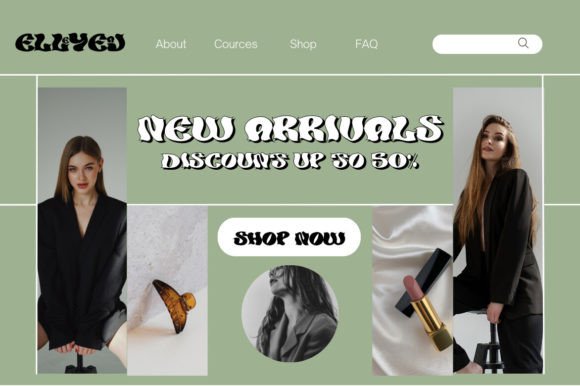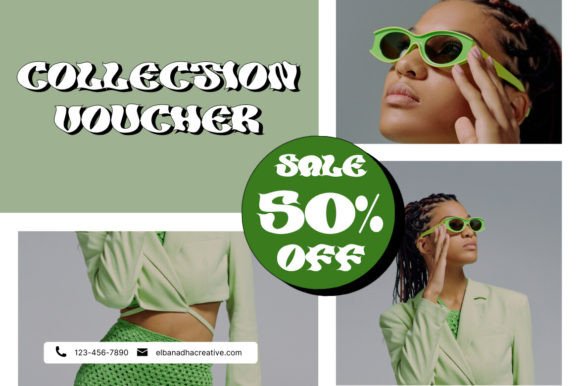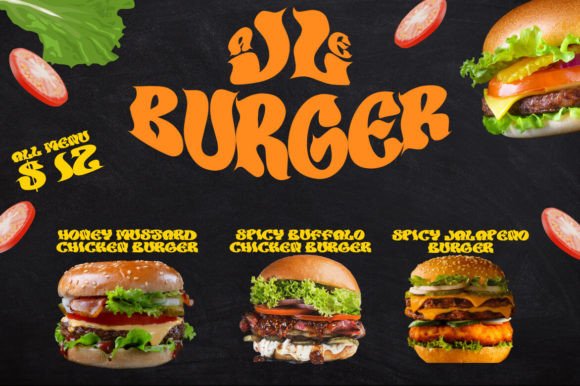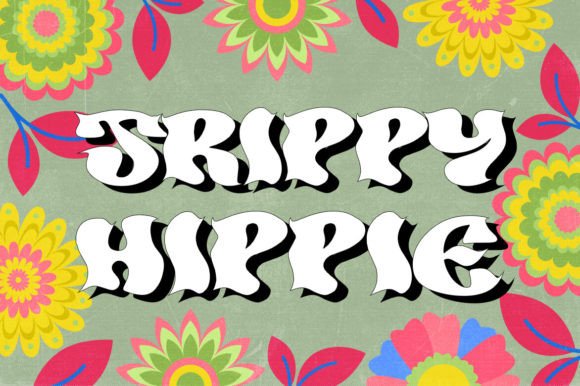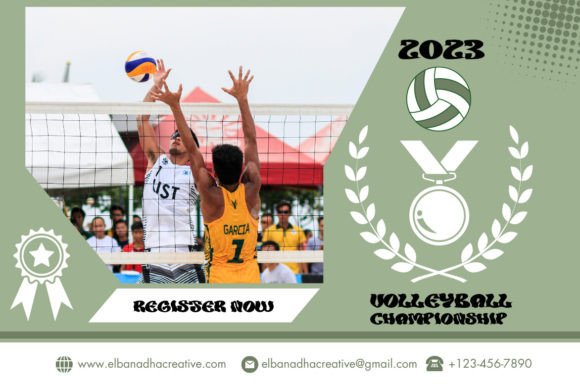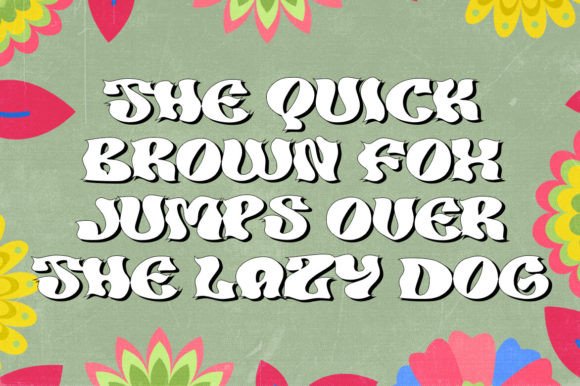
Introducing AJEGILE: The Ultimate Display Typeface Font for Creative Projects
In the world of design, typography plays a crucial role in conveying messages, expressing creativity, and capturing the audience’s attention. When it comes to selecting the perfect font for a project, designers and crafters often find themselves spoiled for choice. However, if you’re looking for a display typeface font that exudes elegance, sophistication, and versatility, look no further than AJEGILE.
What is AJEGILE?
AJEGILE is a stunning display typeface font designed to elevate your creative projects to new heights. Its unique blend of modernity and classic charm makes it an ideal choice for a wide range of applications, from logos and branding projects to homeware designs, product packaging, and more.
Key Features of AJEGILE
- Unique and Elegant Design: AJEGILE boasts a distinctive and refined design that sets it apart from other fonts. Its elegant lines, subtle curves, and carefully crafted letterforms make it perfect for projects that demand a touch of sophistication.
- Versatile and Adaptable: Whether you’re working on a logo, brochure, or social media graphics, AJEGILE adapts seamlessly to various design contexts, ensuring your message is conveyed with clarity and style.
- Wide Range of Applications: AJEGILE is suitable for an extensive array of projects, including:
- Logos and branding projects
- Homeware designs
- Product packaging
- Mugs and ceramics
- Quotes and posters
- Shopping bags and merchandise
- T-shirts and apparel
- Book covers and publications
- Name cards and invitation cards
- Greeting cards and labels
- Photography and watermark
- Special events and exhibitions
Why Choose AJEGILE?
With so many fonts available, why should you choose AJEGILE for your next project? Here are just a few compelling reasons:
- Stand Out from the Crowd: AJEGILE’s unique design ensures your project will grab attention and leave a lasting impression on your audience.
- Elevate Your Brand: By incorporating AJEGILE into your branding, you’ll convey a sense of sophistication, elegance, and refinement, helping to establish your brand as a leader in its field.
- Easy to Use and Customize: AJEGILE is designed to be user-friendly, making it easy to integrate into your design workflow. Plus, its flexibility allows for effortless customization to suit your project’s specific needs.
Tips for Using AJEGILE Effectively
To get the most out of AJEGILE, consider the following tips:
- Experiment with Colors and Textures: AJEGILE’s versatility shines when paired with different colors and textures. Don’t be afraid to try out various combinations to find the perfect fit for your project.
- Play with Font Sizes and Styles: AJEGILE’s design allows for a range of font sizes and styles, from bold and dramatic to delicate and subtle. Experiment with different variations to create visual interest and hierarchy.
- Pair with Complementary Fonts: AJEGILE pairs beautifully with other fonts, allowing you to create stunning typographic combinations. Try pairing it with serif or sans-serif fonts to add contrast and depth to your design.
| Font Name | Ajegile Font |
| Author | Elbanadha Creative |
AJEGILE is more than just a font – it’s a design solution that can elevate your creative projects to new heights. With its unique blend of elegance, sophistication, and versatility, AJEGILE is the perfect choice for designers and crafters looking to make a lasting impression. Whether you’re working on a logo, branding project, or any other design endeavor, AJEGILE is sure to become your go-to font for stunning results.